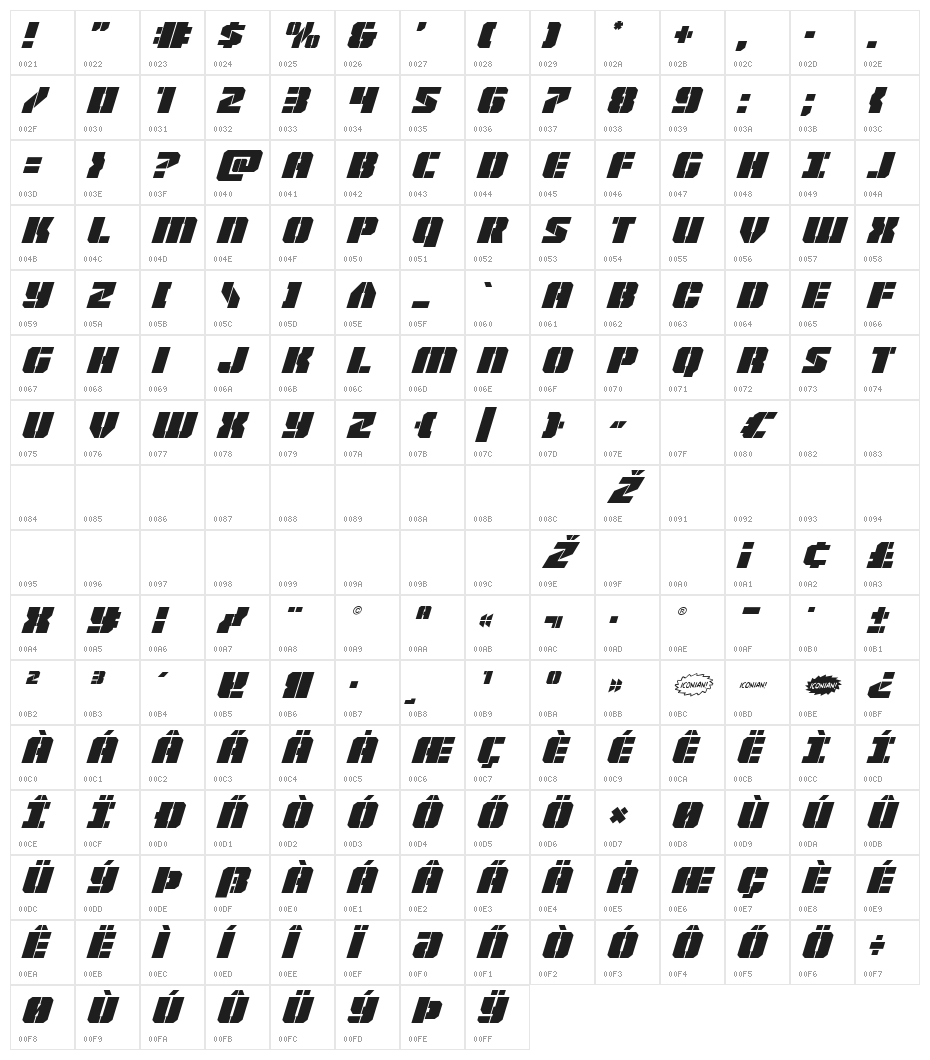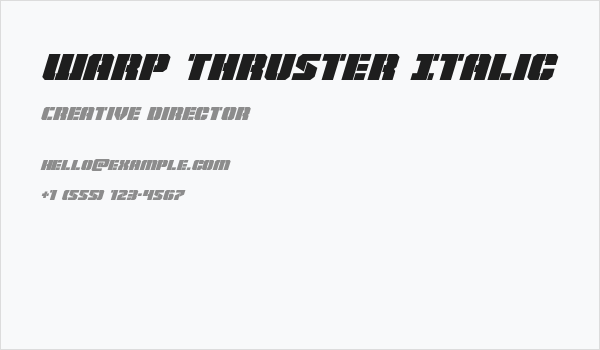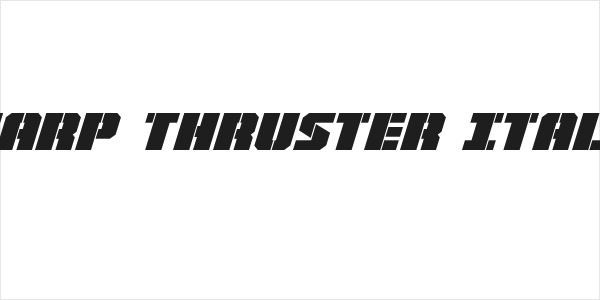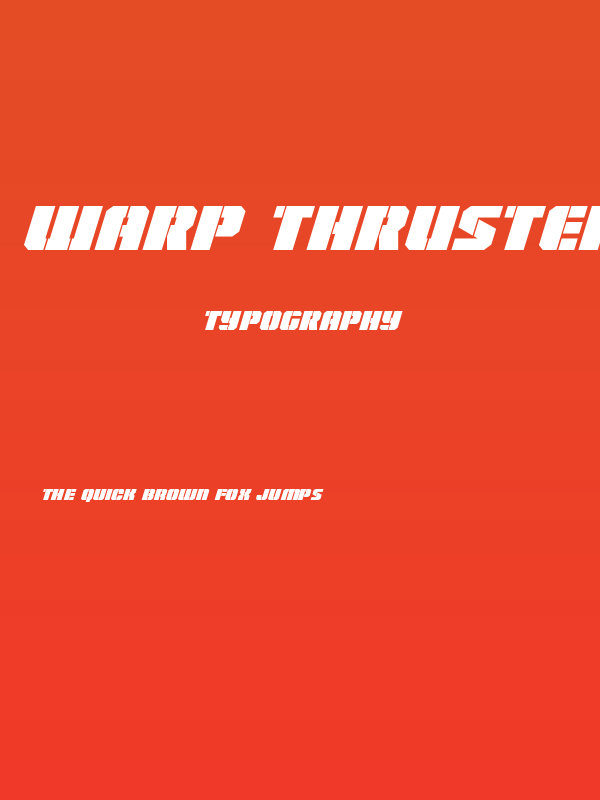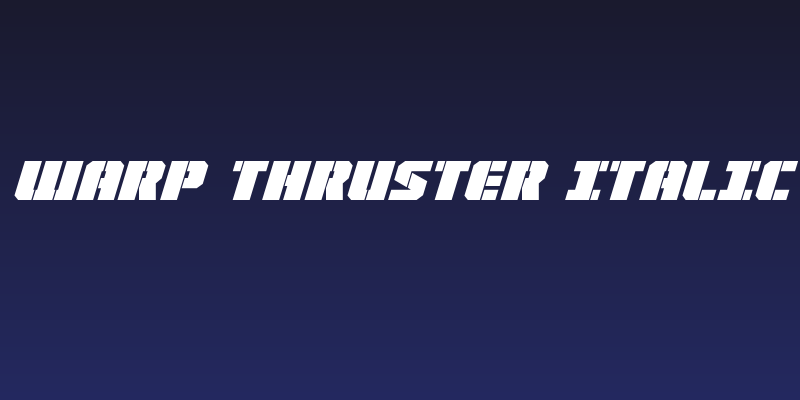
Warp Thruster Italic Font
Warp Thruster Italic Description
This font features a bold, futuristic design with sharp, angular edges and a dynamic, italicized slant. The characters are constructed with a geometric precision, giving them a mechanical and high-tech appearance. The uppercase and lowercase letters maintain a consistent style, with the lowercase slightly smaller but equally bold. Numbers and special characters are designed to match the overall aesthetic, ensuring uniformity across all glyphs. The font's unique style makes it stand out, ideal for projects that require a modern and edgy look.
| Overall Style | Futuristic, Modern |
| Proposed Projects | Ideal for sci-fi themed designs, video game titles, tech branding, and futuristic posters. |